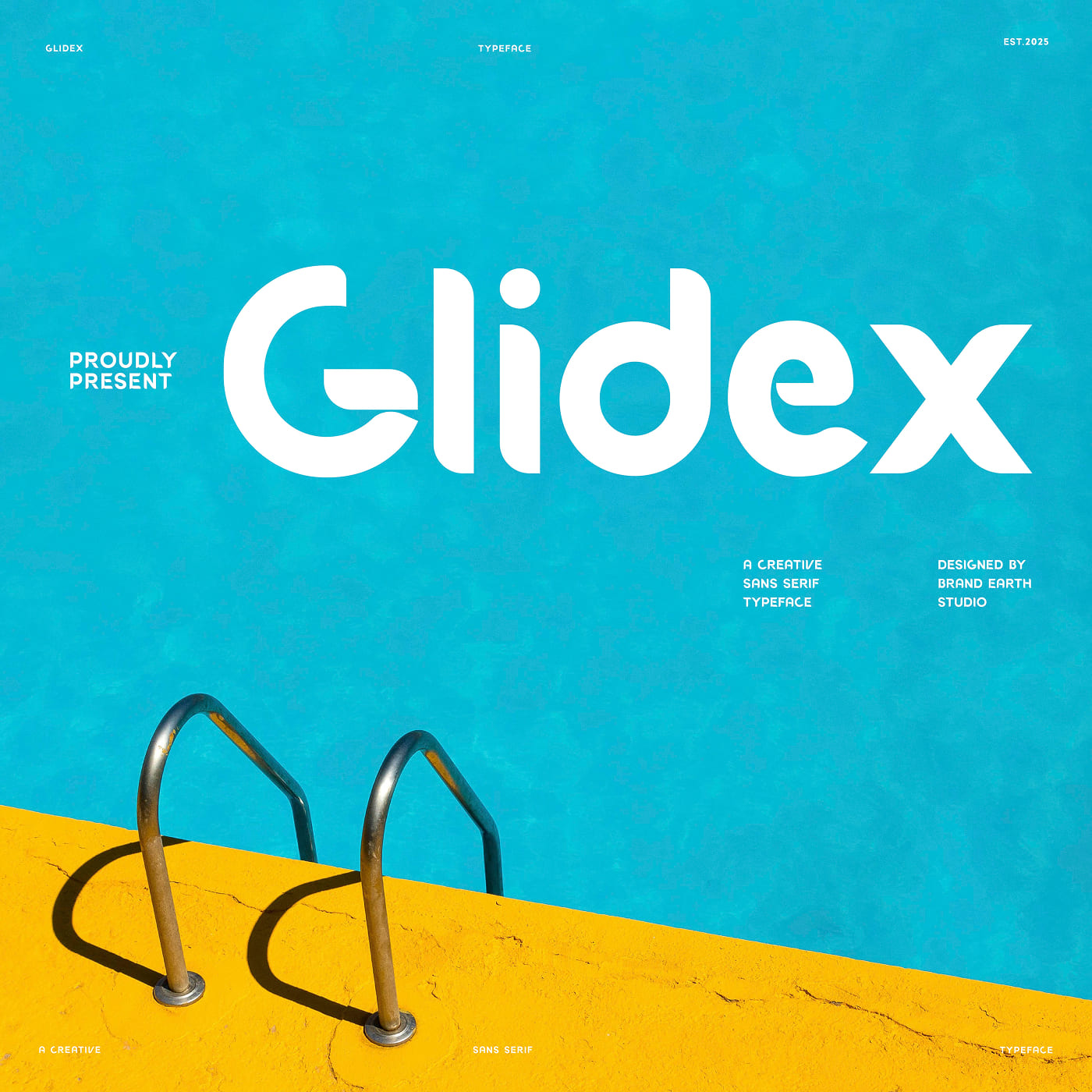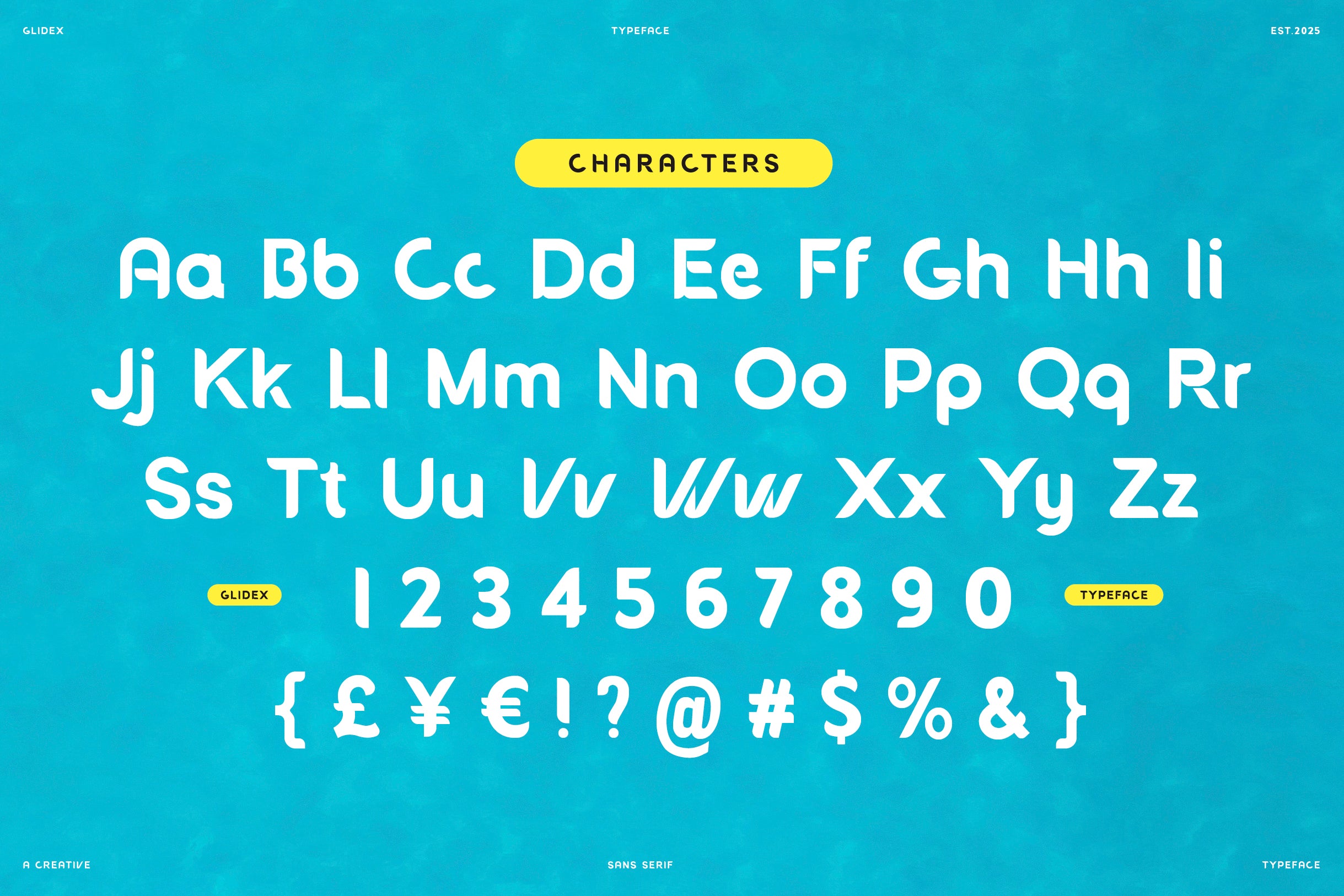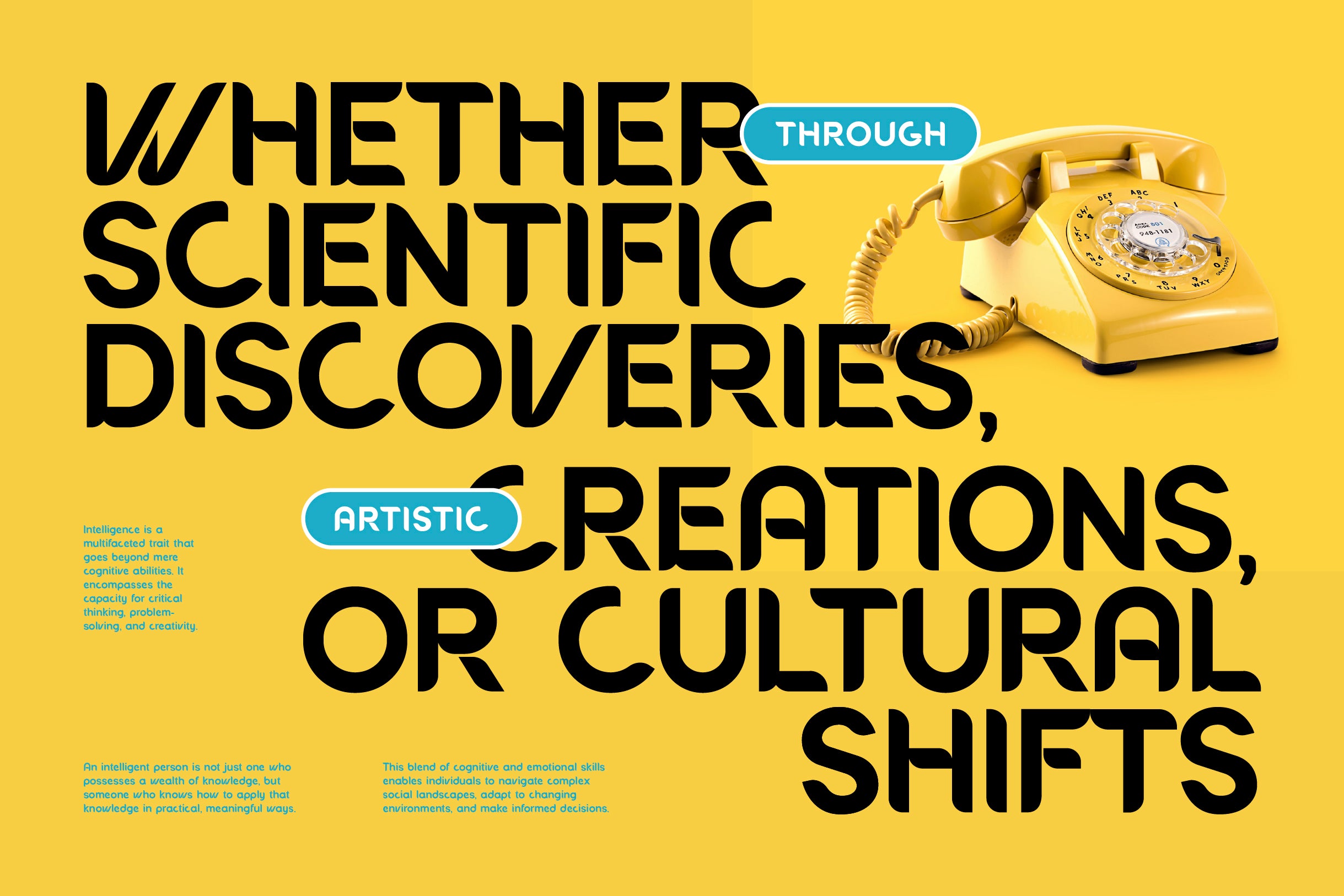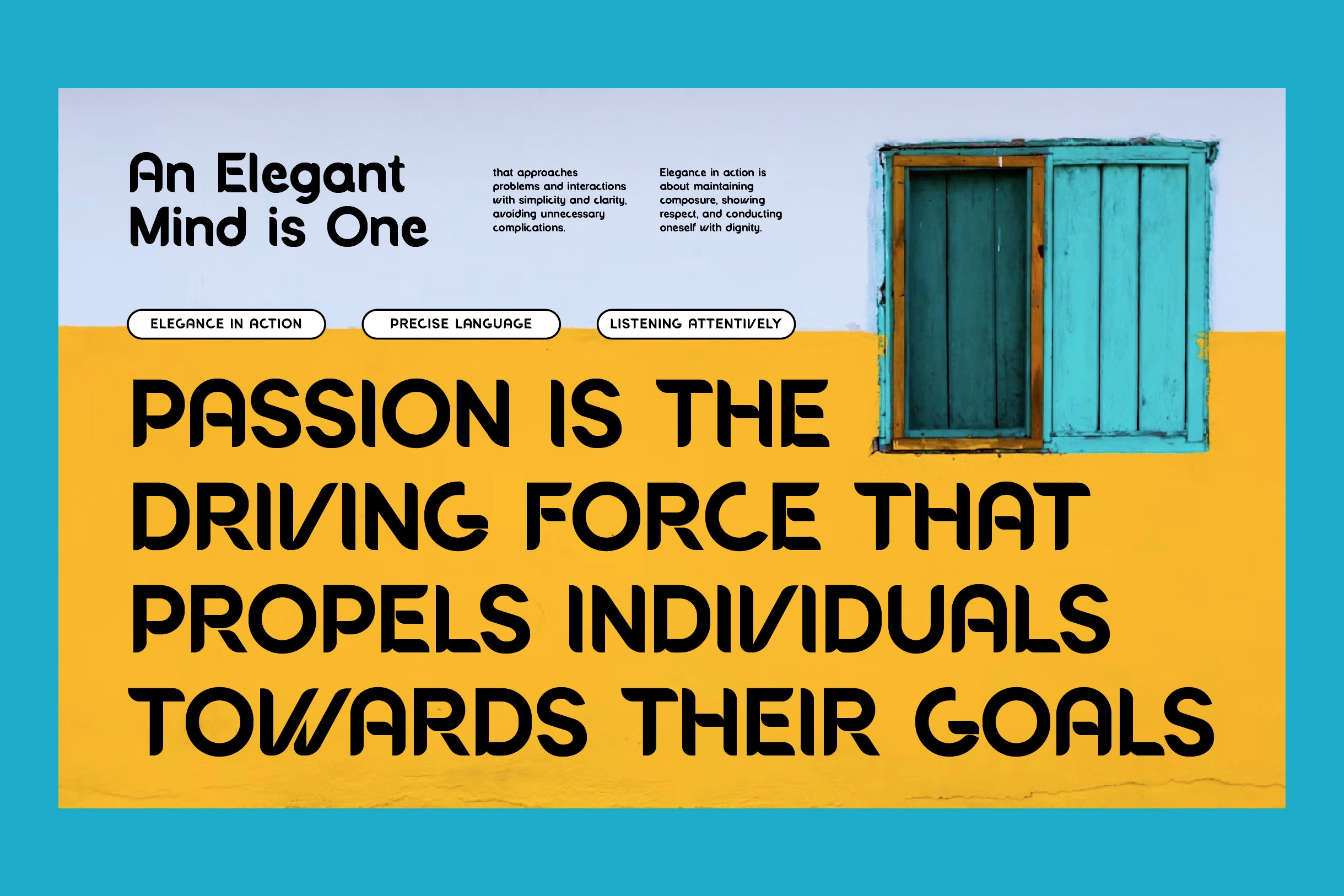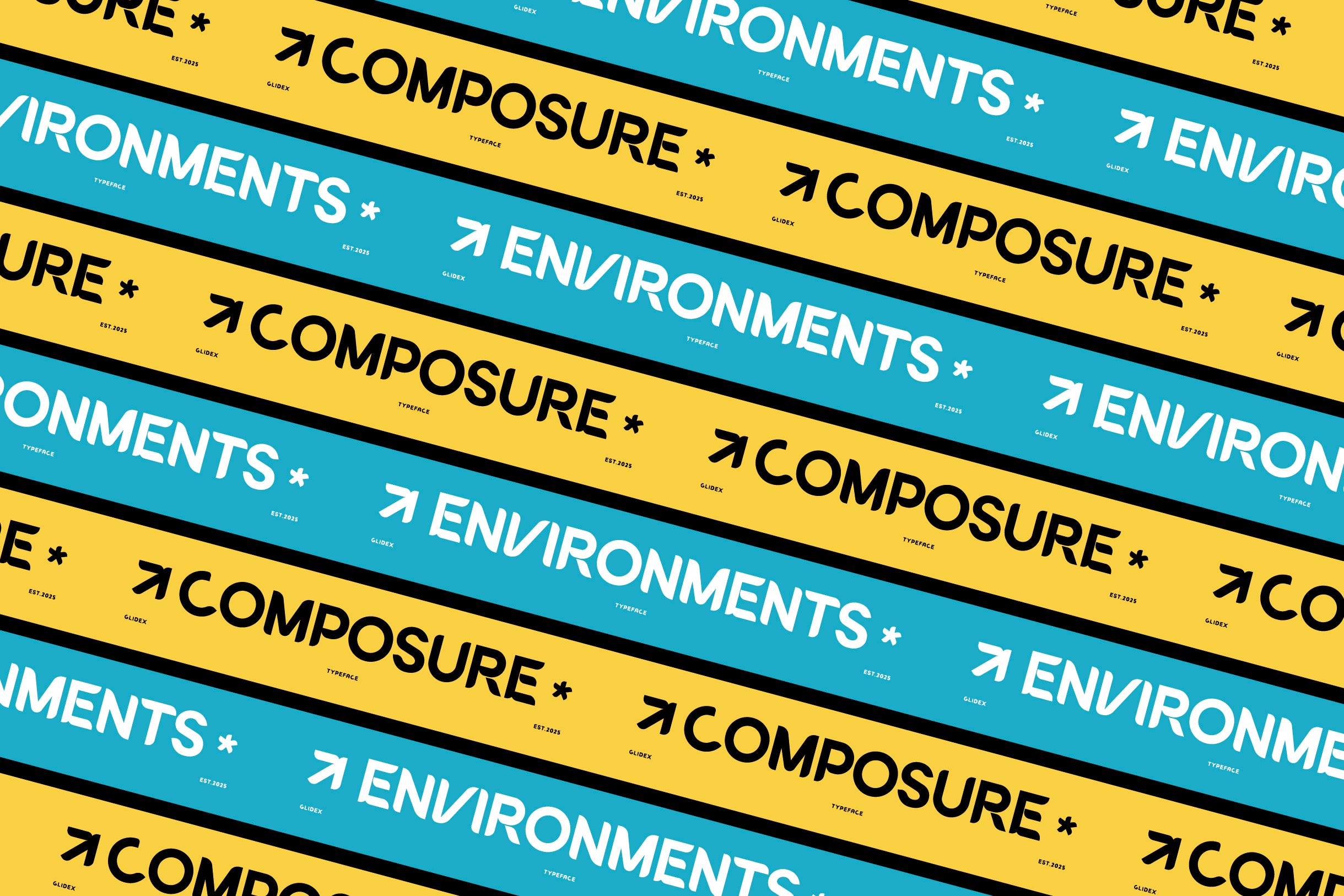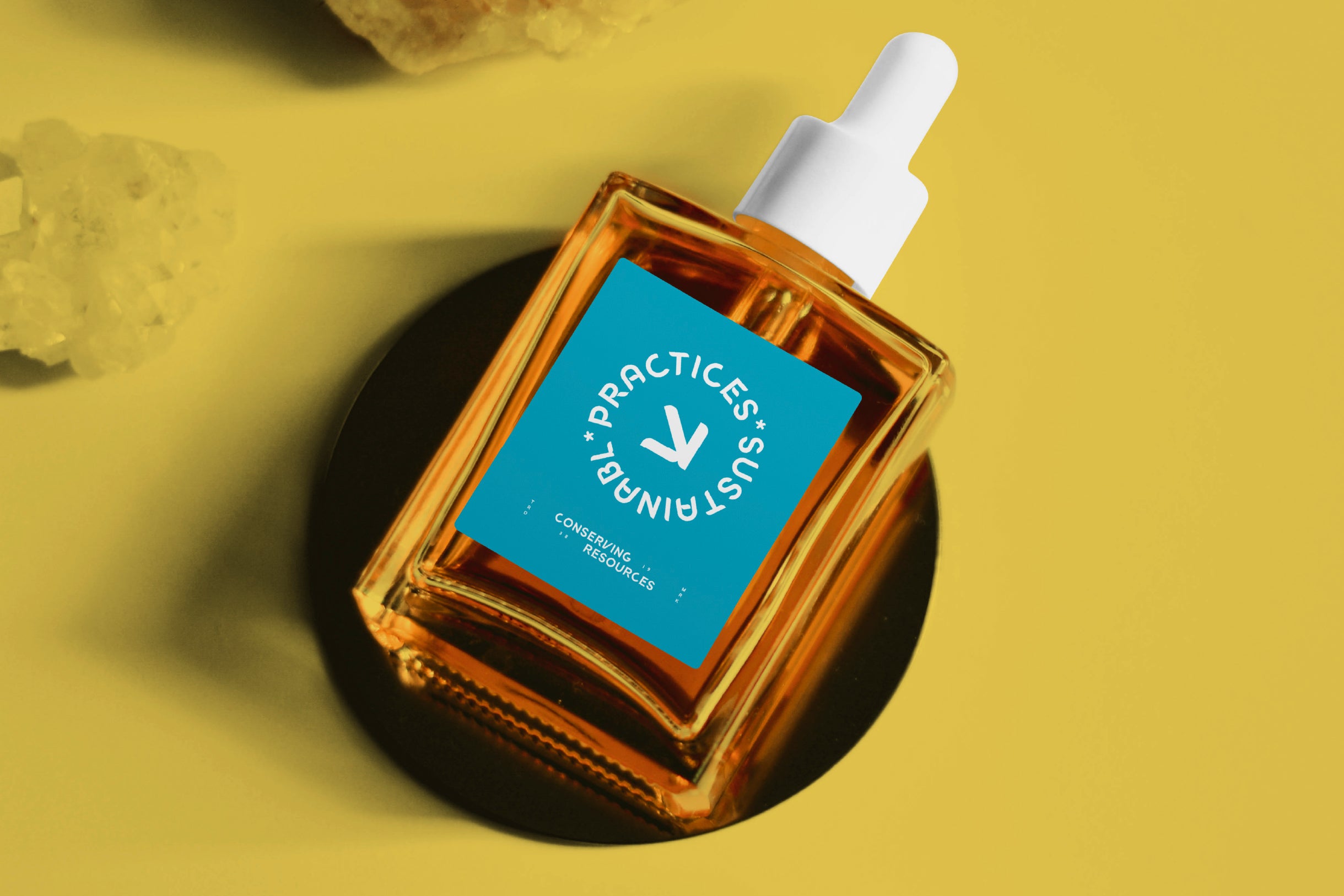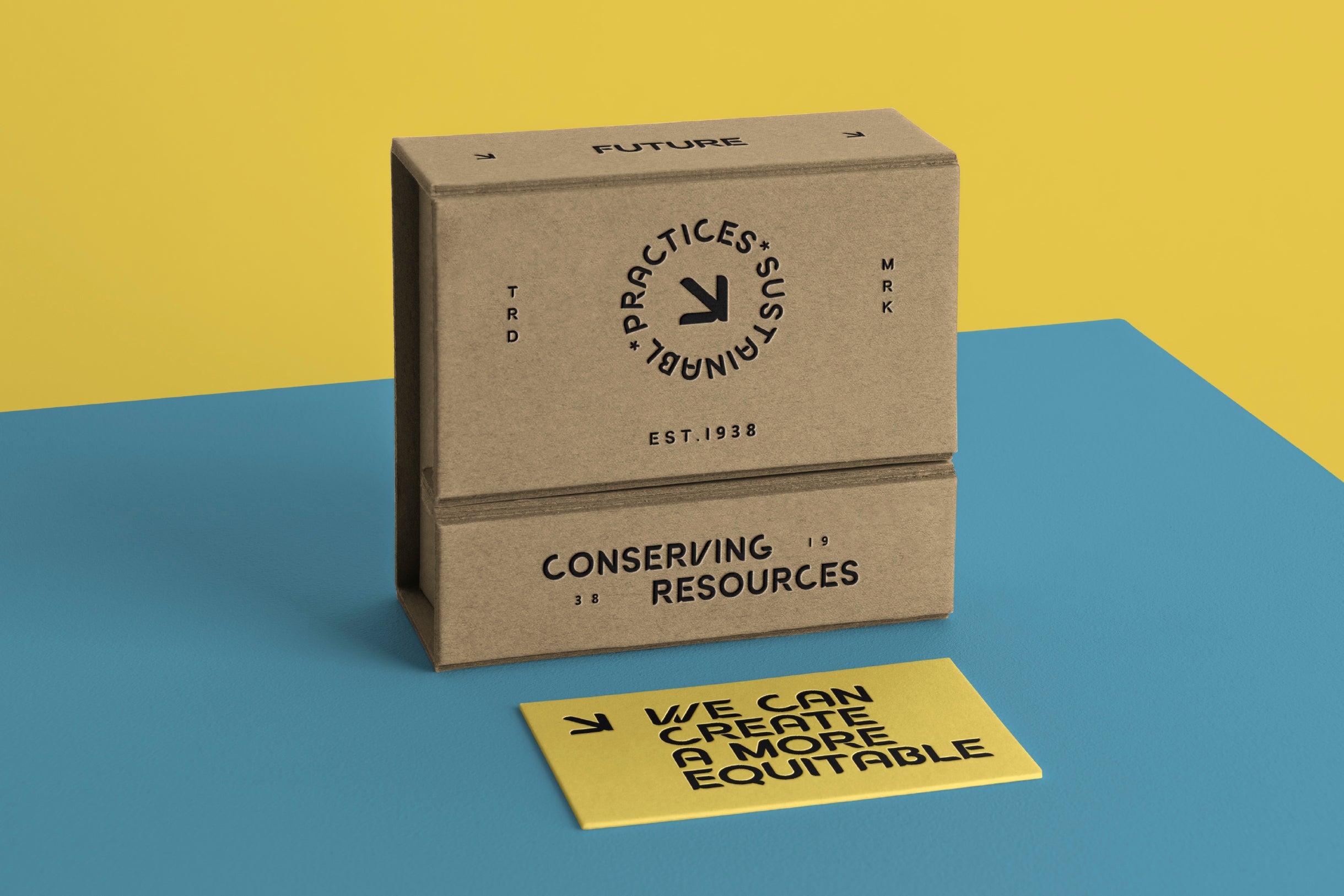
Glidex Creative Sans Serif Typeface Font
Glidex is a distinctive creative sans serif typeface that combines rounded geometric forms with unexpected cut-out details and angular character endings. The letterforms feature open counters, softened corners, playful terminals, and unique internal shapes that give familiar sans serif structures a more expressive visual identity. Its strong, compact construction keeps the characters highly visible at larger sizes, while the unusual details add personality to short words and headline compositions. The character set shown includes uppercase and lowercase letters, numerals, and common currency, punctuation, and symbol characters, making Glidex versatile for branding, posters, packaging, editorial graphics, and other visual projects that need a modern but unconventional typographic voice.
Glidex is a sans serif typeface featuring rounded geometric forms with cut-out details and angular terminals. It includes uppercase and lowercase letters, numerals, punctuation, and symbol characters in TTF and OTF formats.